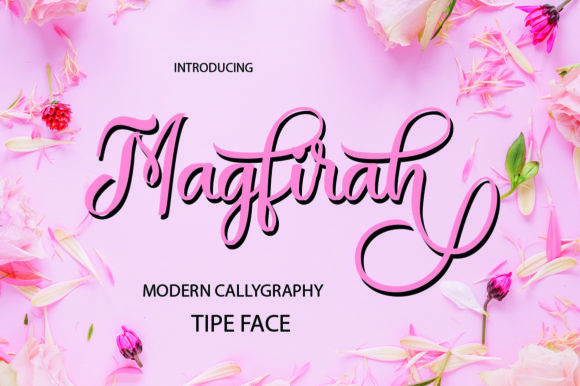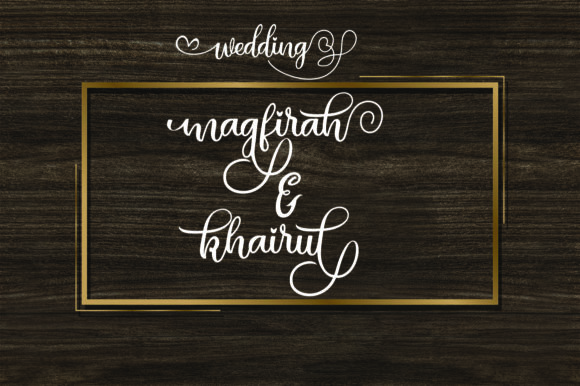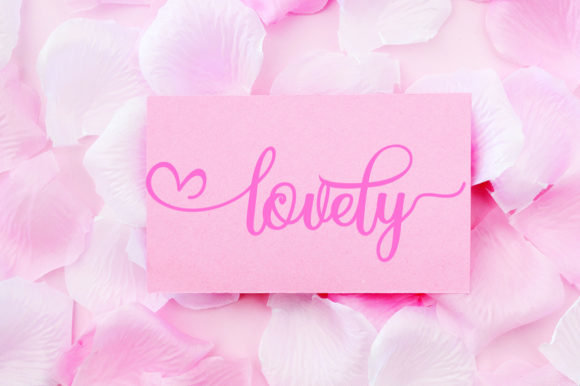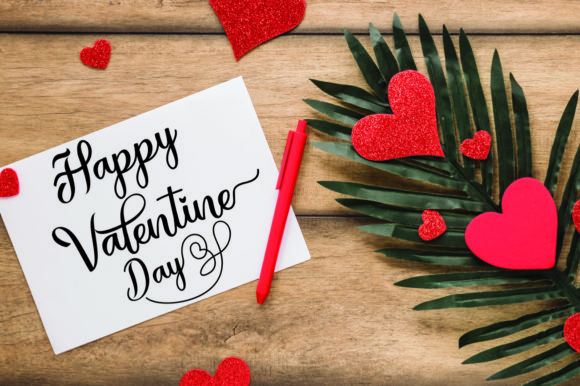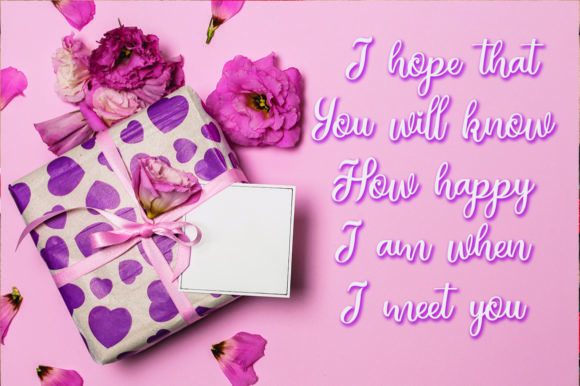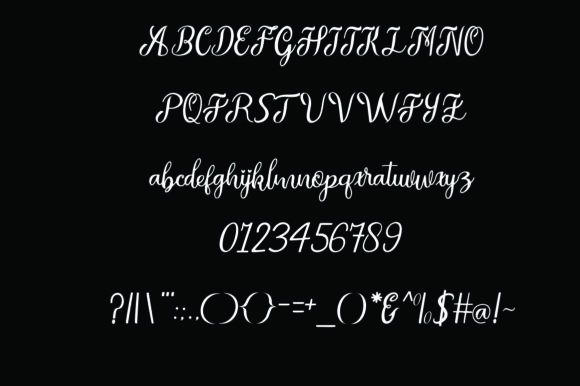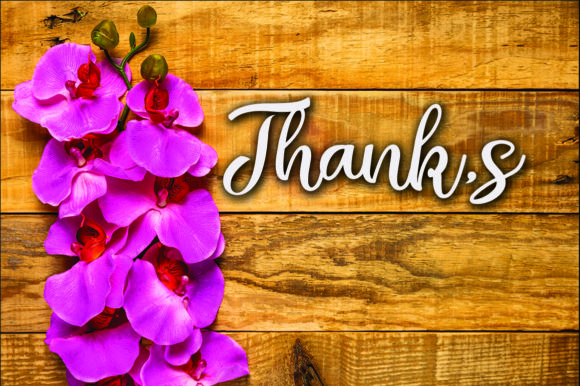
Magfirah Font
About Magfirah Font
Magfirah is a sweet and charming handwritten font featuring stunning swashes. It will turn any design project into a true piece of art.